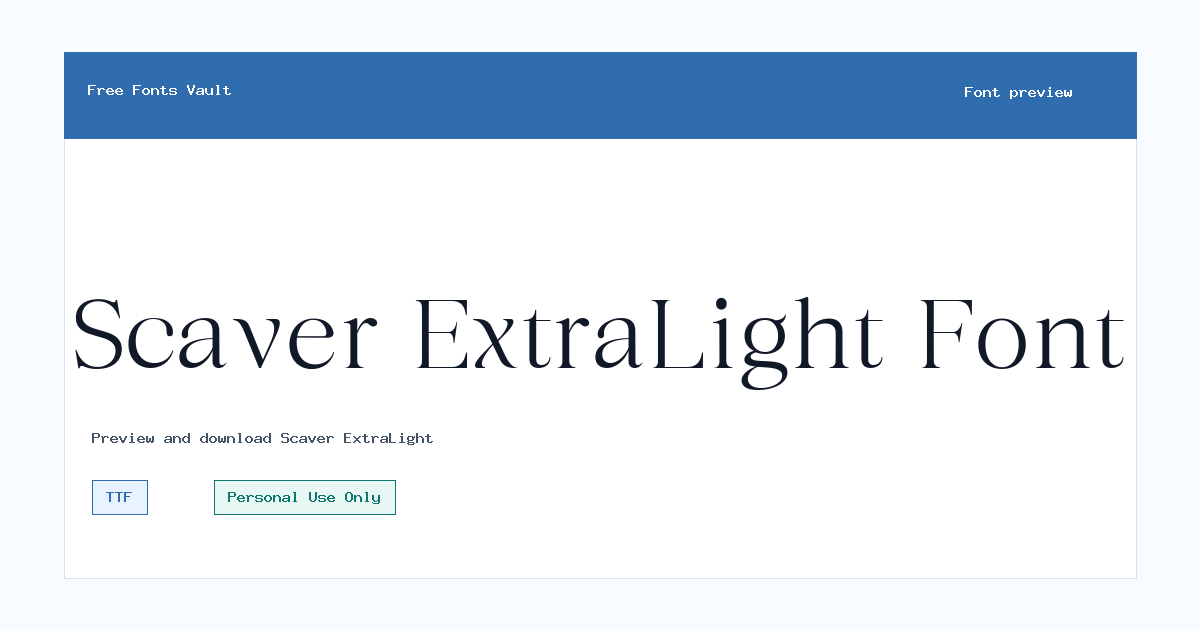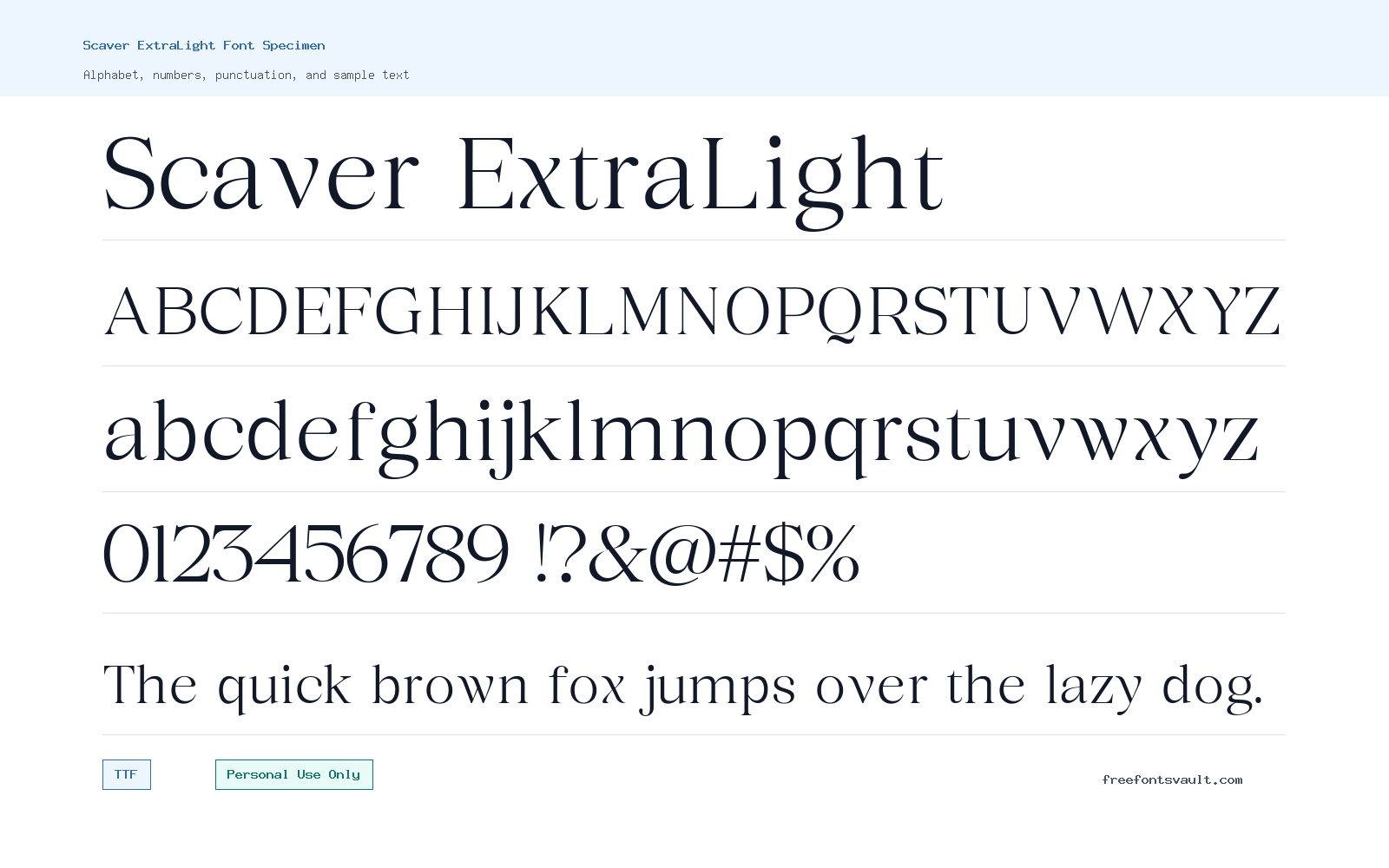
Scaver ExtraLight
- Designer Glyphminds Studio (Graphicted.Co)
Scaver ExtraLight is a light serif font family style with a clean, delicate feel. It is best tested in the preview tool with your own words, especially if you plan to use it for titles, invitations, branding drafts, or decorative text.
About Scaver ExtraLight
Scaver ExtraLight gives text a slim serif look without making the letters feel too heavy. The included upright and italic styles make it useful when you want a softer display voice: the regular style works well for calm headings, while the italic can add a more graceful accent in short phrases. Because this is an ExtraLight cut, it is most effective when the text has enough size and spacing to show the fine strokes clearly.
Use the preview box to test the exact words you plan to design with. Light serif fonts can look elegant in large headlines, names, quote cards, packaging mockups, and social graphics, but they may lose clarity in small body text or low-contrast colors. Try both the regular and italic files, compare uppercase and lowercase shapes, and check punctuation, numbers, and spacing before downloading. If your project will be printed, test a sample at the final size first, since very thin strokes can reproduce differently across screens, paper, and print methods.
- ExtraLight serif style with a fine, understated appearance for display text.
- Large headings, name designs, invitations, quote graphics, and elegant short text.
- Personal branding drafts, mood boards, packaging concepts, and social media visuals where a light serif tone fits.
For best results, keep Scaver ExtraLight at larger sizes, give the letters room to breathe, and avoid very busy backgrounds. The italic style is better as an accent than as a long-reading text face. Before using it in any client, business, product, logo, merchandise, or advertising work, check the commercial licensing terms directly.
What is Scaver ExtraLight best used for?
It is best suited to larger display text such as headings, names, invitations, quotes, and visual mockups where its thin serif strokes can stay clear.
Can I use Scaver ExtraLight for body text?
You can test it, but the ExtraLight weight is likely better for short text. For long paragraphs or small sizes, choose a sturdier serif or pair it with a more readable body font.